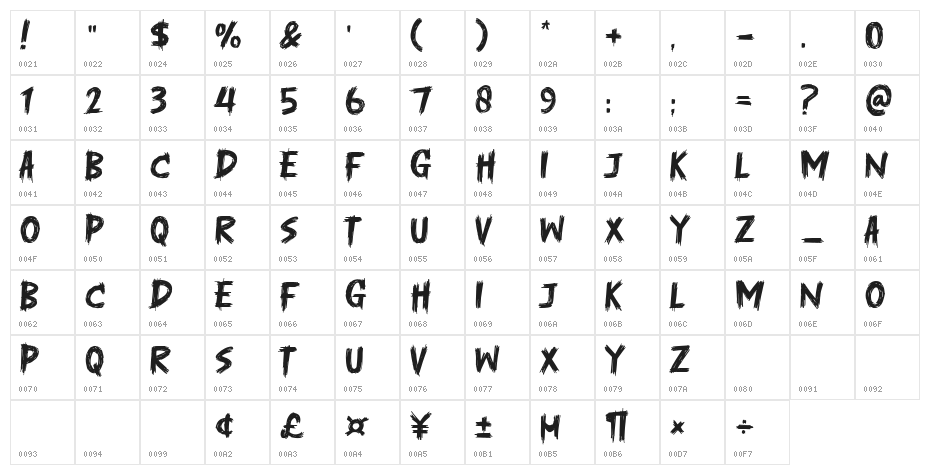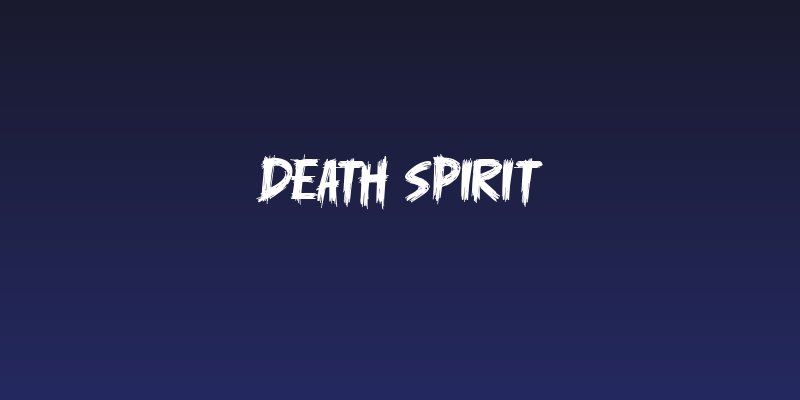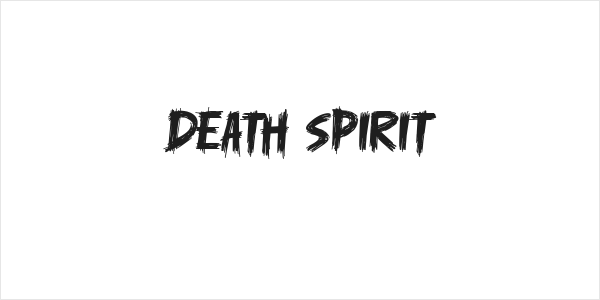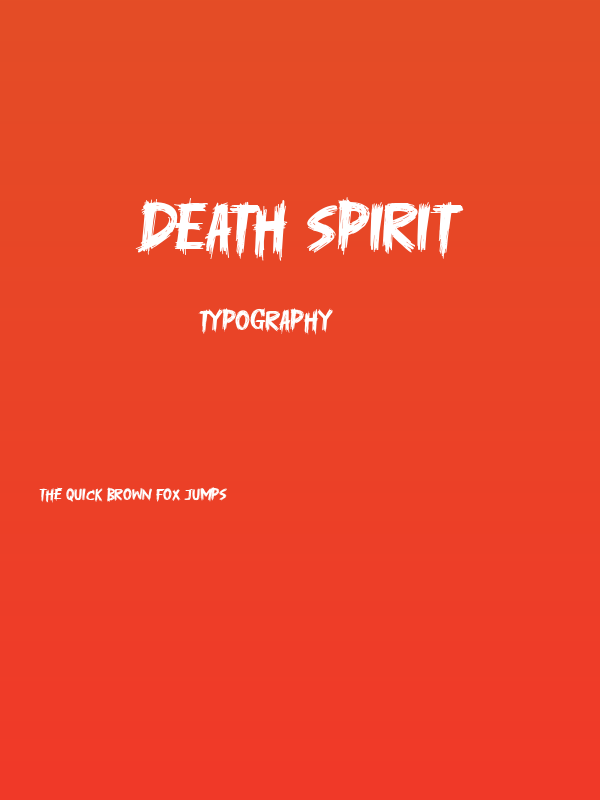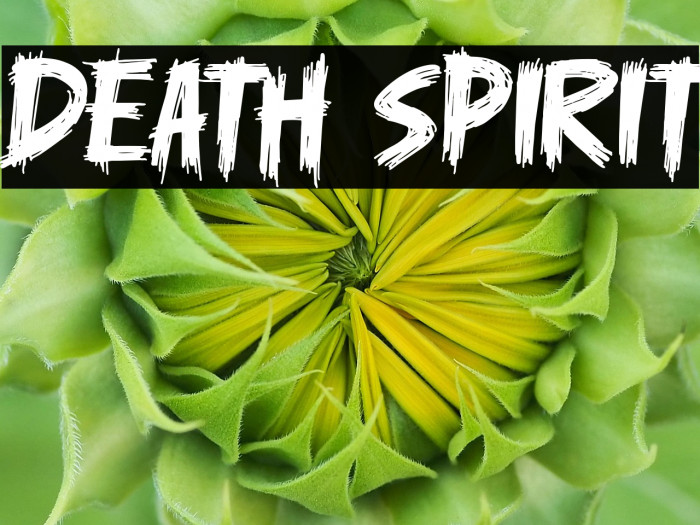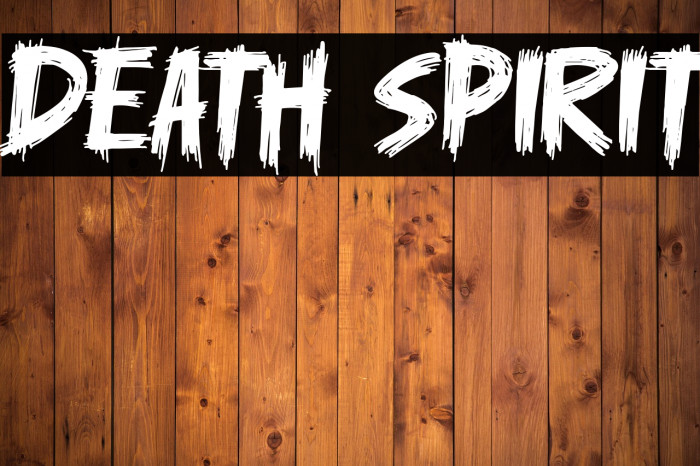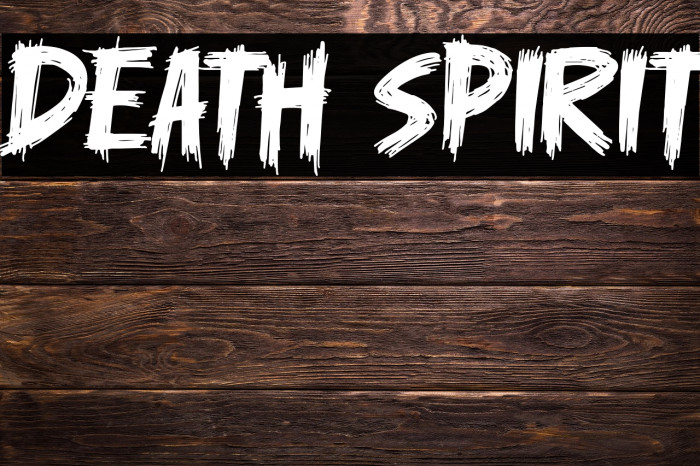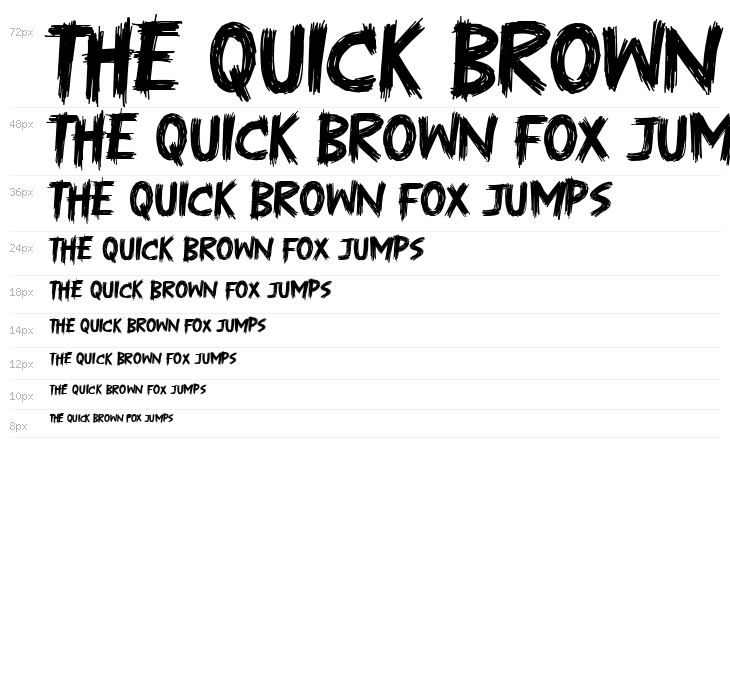
Death Spirit Font
Death Spirit Description
This font features a bold and aggressive style with jagged, brush-like strokes that give it a raw, energetic appearance. The characters are unevenly weighted, with a hand-drawn aesthetic that conveys a sense of urgency and intensity. The uppercase and lowercase letters maintain a consistent style, while the numbers and special characters integrate seamlessly, enhancing the font's chaotic yet cohesive look. Its distinct, edgy design makes it stand out, perfect for projects that require a strong visual impact.
| Use Case | Headlines, Posters, Logos |
| Proposed Projects | Ideal for horror-themed posters, album covers, video game titles, or any project needing a dramatic, edgy look. |